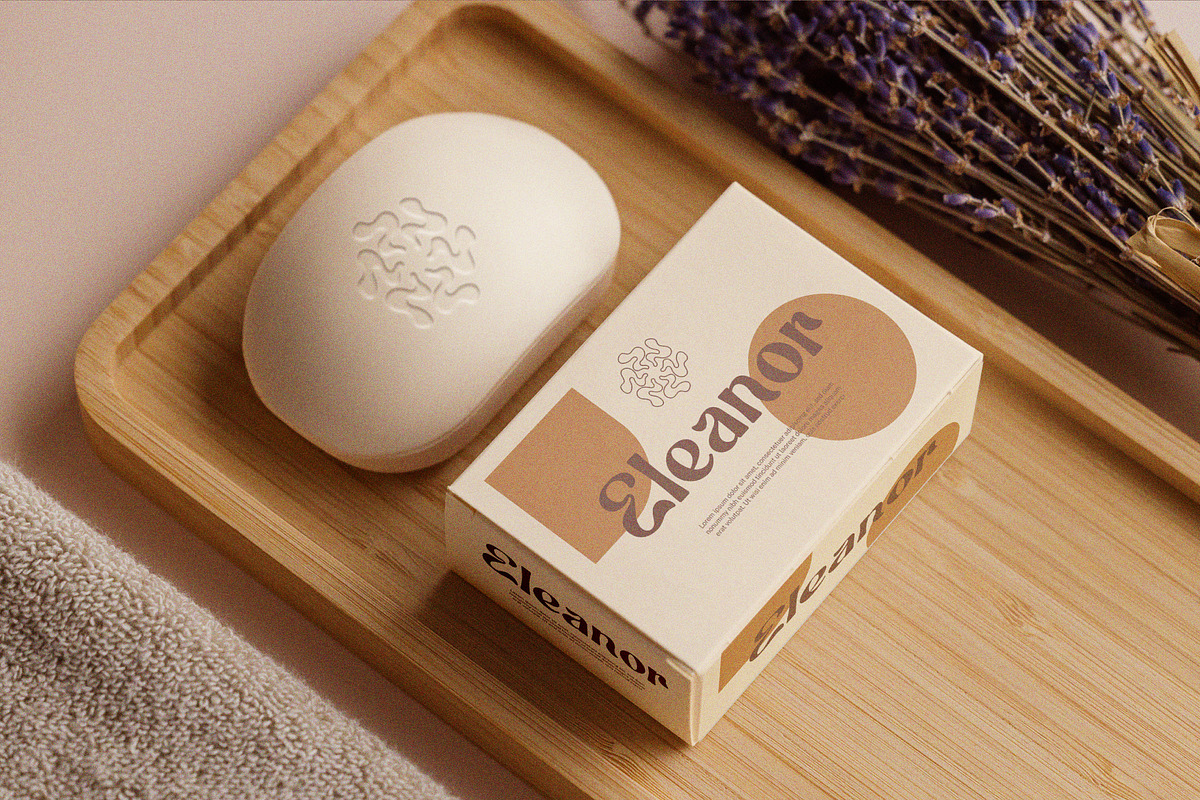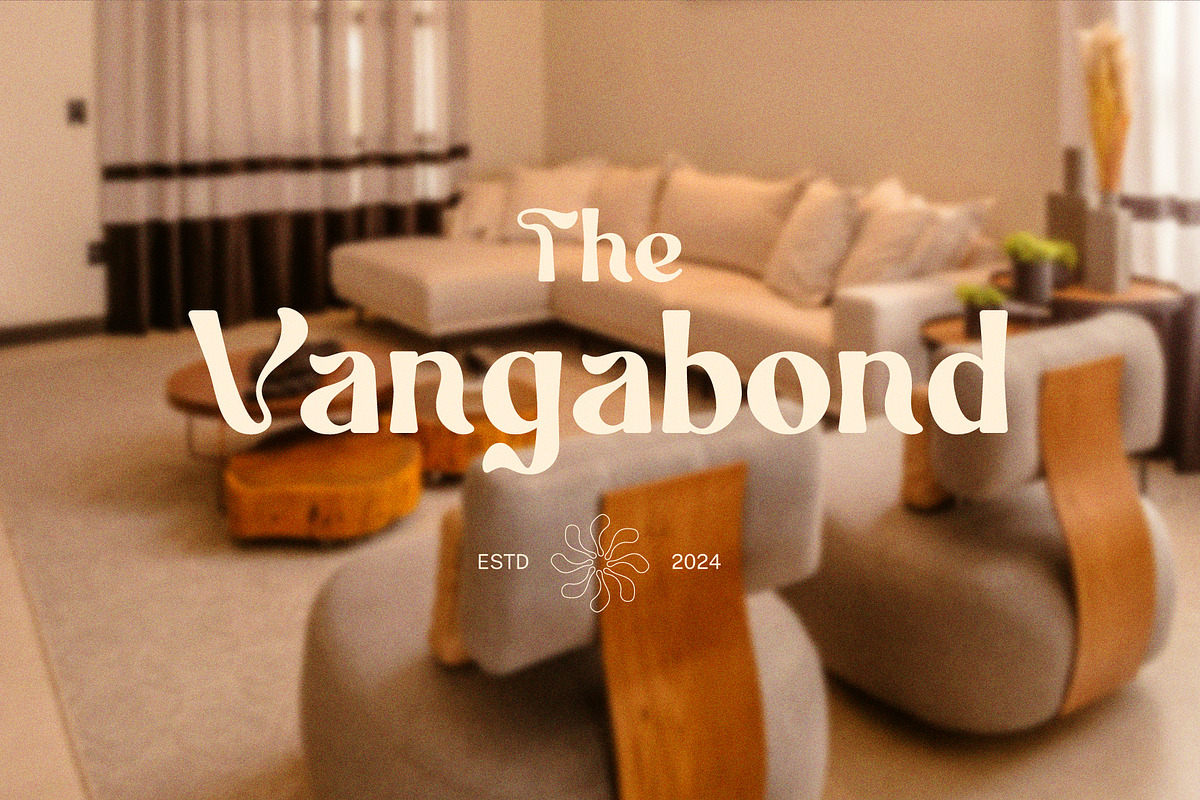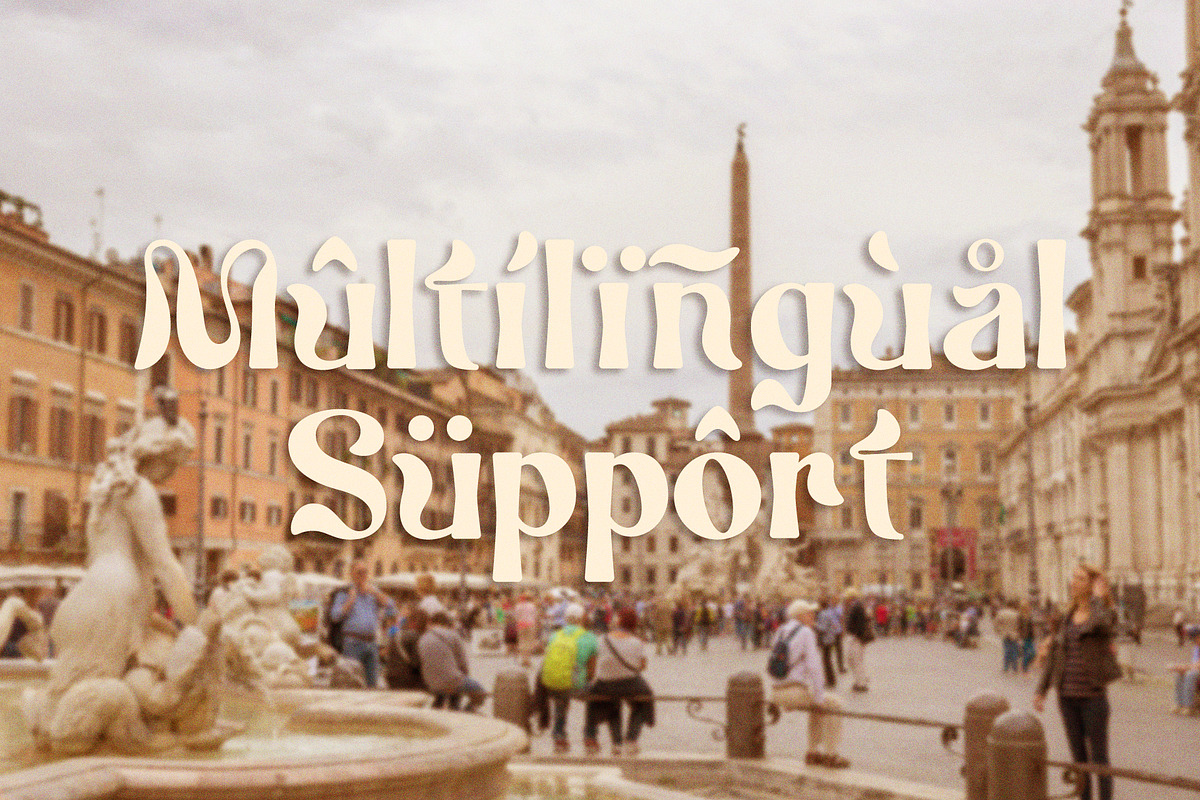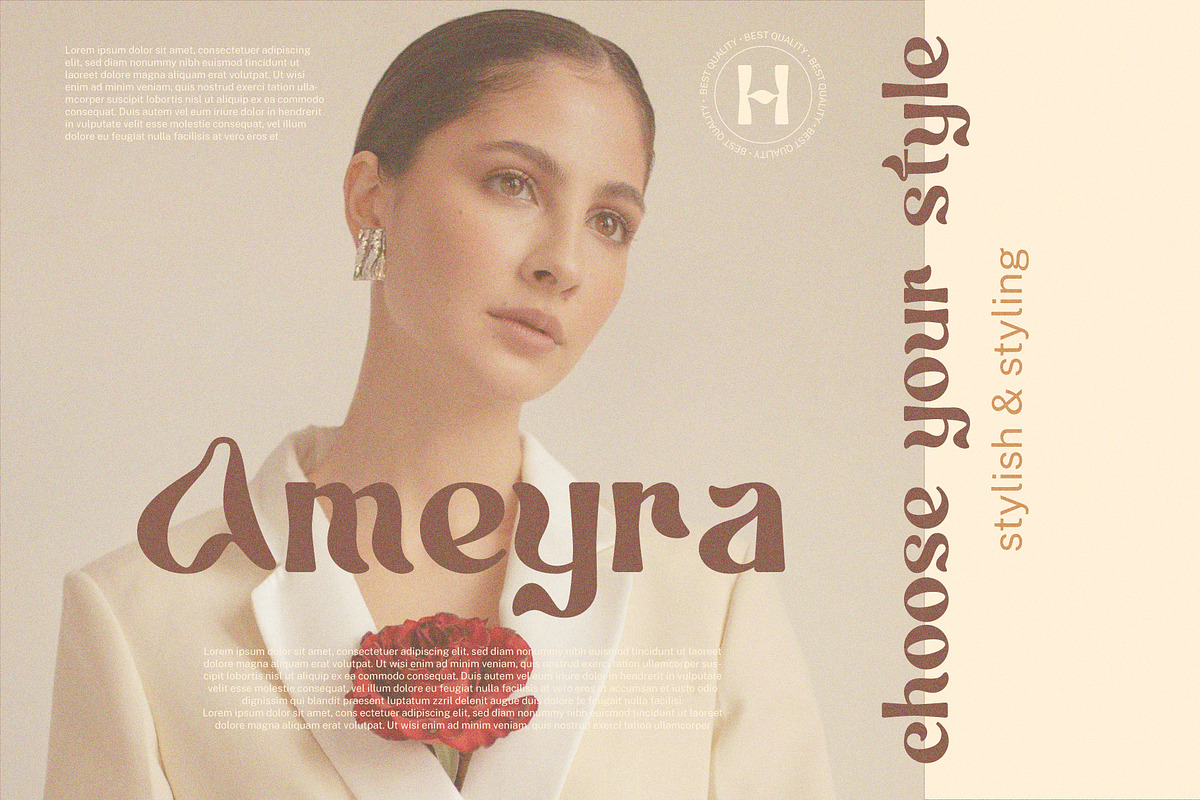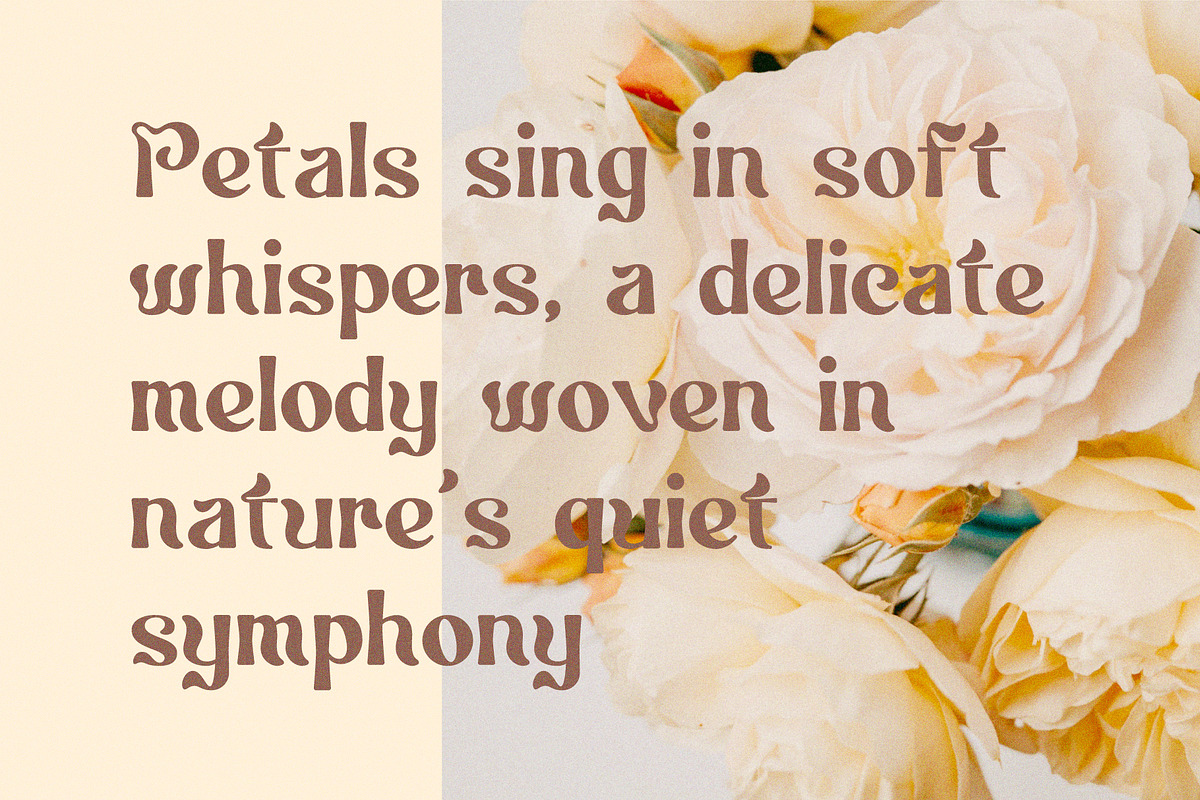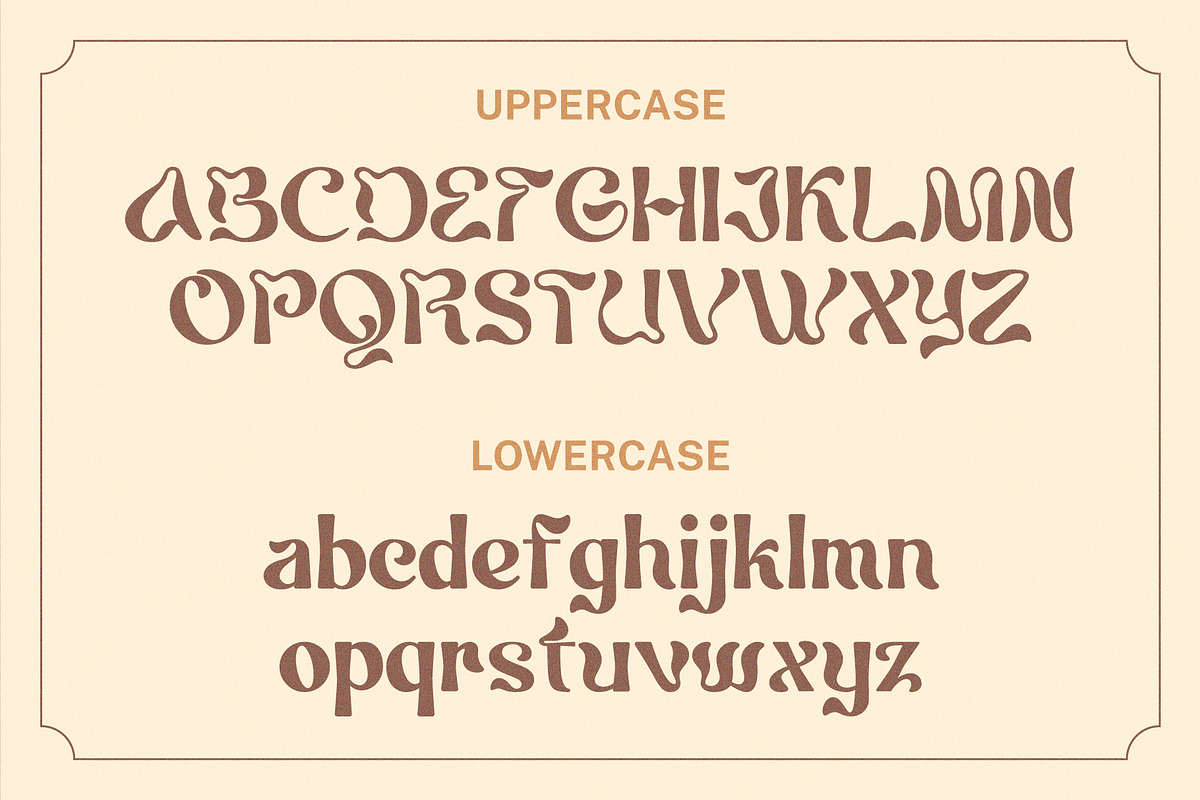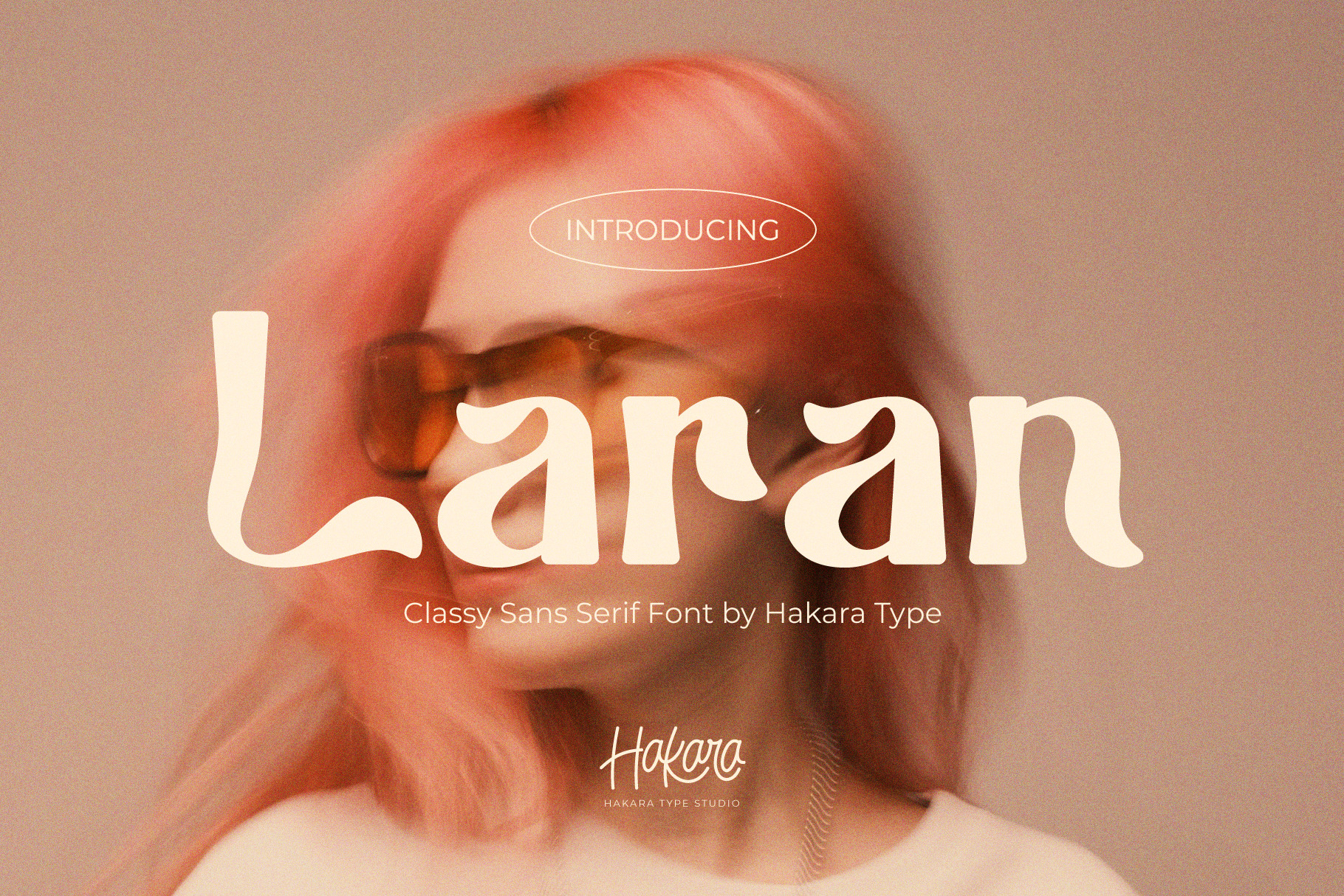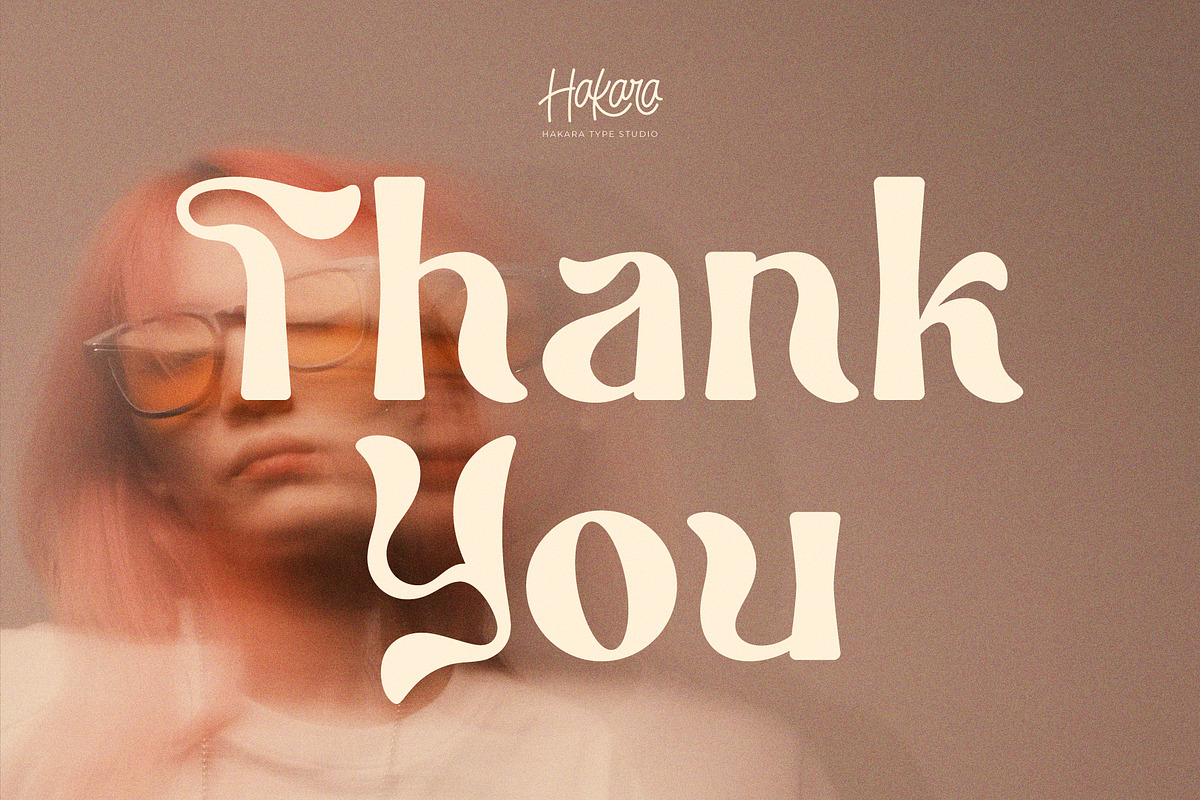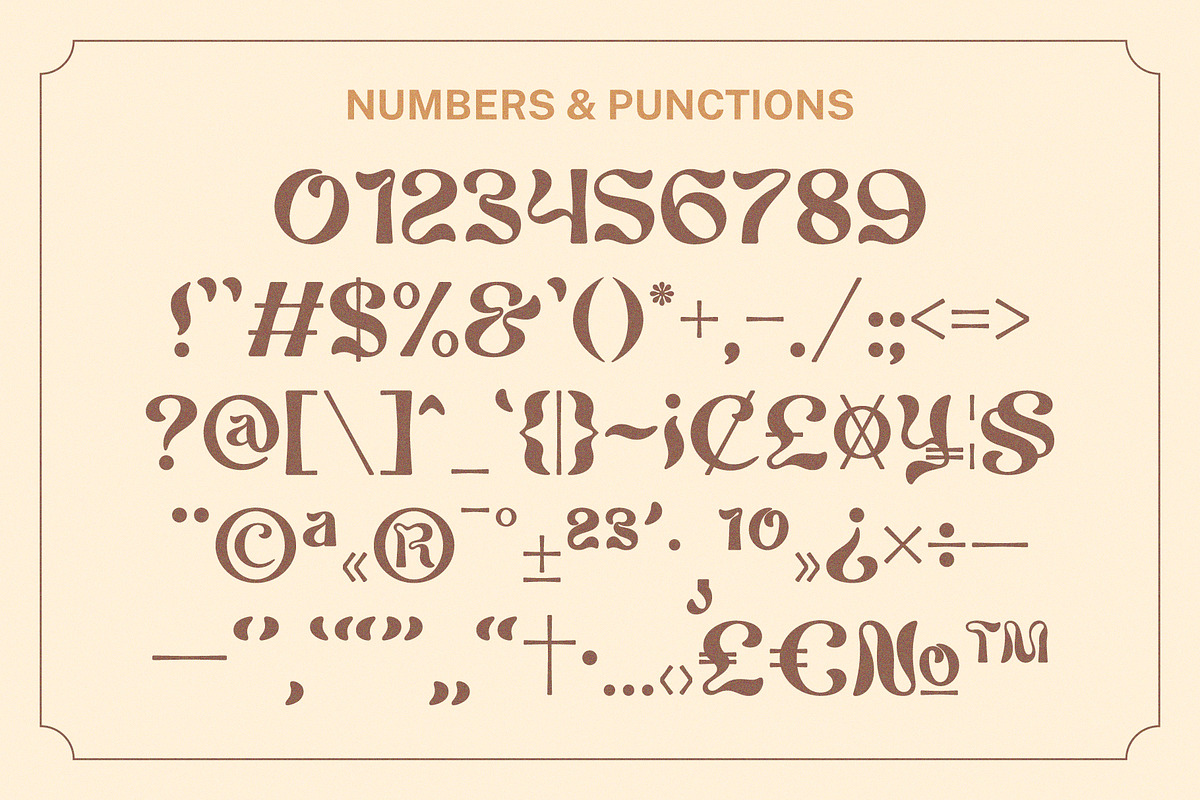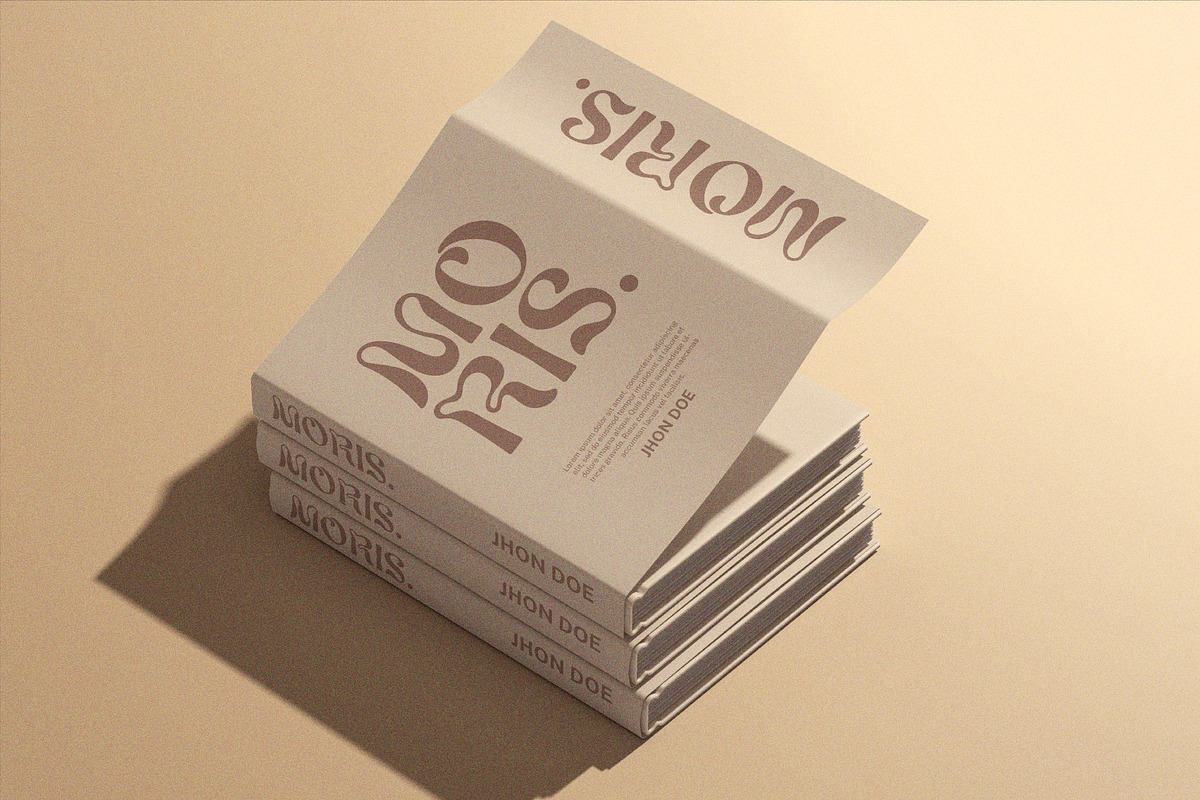
Laran - Display Typeface
Laran typeface is a modern display typeface with bold yet stylish and elegant shapes. This font embodies perseverance and beauty. Laran comes with uppercase, lowercase, numbers, function, and included multilingual support.